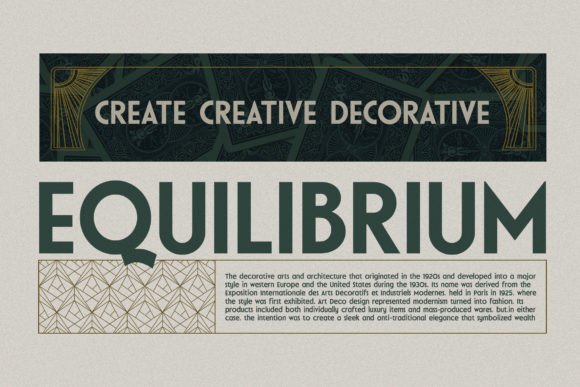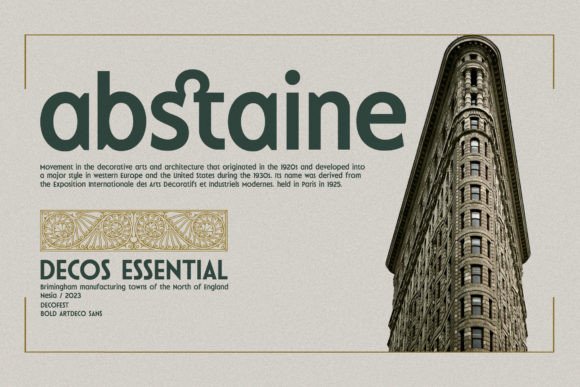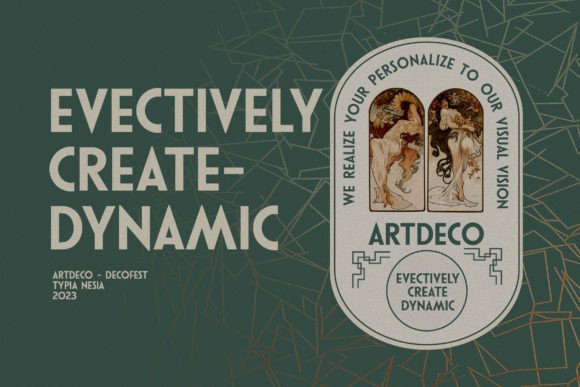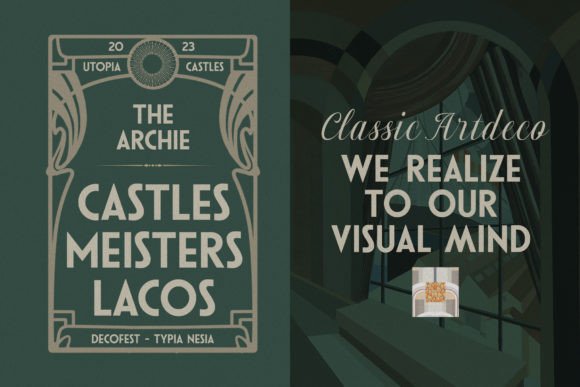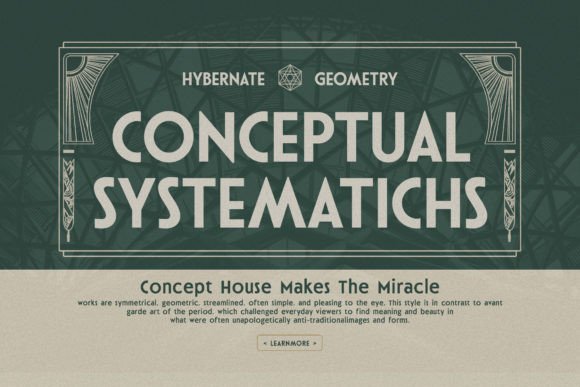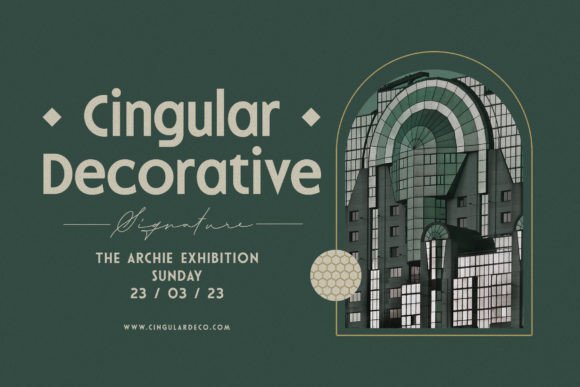
Introducing Decofast Font: The Ultimate Art Deco-Inspired Sans-Serif Font
Are you looking for a font that exudes classic vintage style and sophistication? Look no further than Decofast Font, an Art Deco-inspired sans-serif font that embodies the glamour and elegance of the Roaring Twenties. In this article, we’ll dive into the world of Decofast, exploring its design, features, and applications, and why it’s a must-have for designers and crafters alike.
The Art Deco Era: A Timeless Inspiration
The Art Deco era, which spanned from the 1920s to the 1940s, was a time of great creativity and innovation in design. Characterized by geometric shapes, metallic materials, and ornate decorations, Art Deco influenced various aspects of visual culture, from architecture to fashion, and of course, typography. Decofast Font is a modern interpretation of this iconic style, distilled into a clean and versatile sans-serif font.
Decofast Font: A Design Classic
Decofast is a display font that boasts a distinctive, elegant look, perfect for creating designs that evoke the luxury and refinement of the Art Deco era. Its sans-serif design ensures clarity and legibility, making it suitable for a wide range of applications, from branding and logos to packaging, posters, and more. With Decofast, you can add a touch of classic sophistication to your projects, instantly elevating them to a new level of style and glamour.
Key Features of Decofast Font
- Art Deco-inspired design: Decofast’s unique style is inspired by the geometric shapes, clean lines, and ornate details characteristic of Art Deco.
- Clean and legible: Despite its decorative nature, Decofast remains clear and easy to read, making it perfect for display text and headlines.
- Versatile: Suitable for various applications, including branding, logos, packaging, posters, and any project that requires a touch of classic sophistication.
- Elegant and sophisticated: Decofast exudes refinement and luxury, making it ideal for designs that require a high-end feel.
Applications of Decofast Font
Decofast Font is an incredibly versatile typeface, suitable for a wide range of design projects. Here are some ideas to get you started:
- Branding and logos: Create a lasting impression with a Decofast-inspired logo that embodies the elegance and sophistication of your brand.
- Packaging design: Add a touch of luxury to your product packaging with Decofast, perfect for high-end cosmetics, jewelry, or fashion brands.
- Poster design: Create eye-catching posters that evoke the glamour of the Art Deco era, ideal for advertising, events, or exhibitions.
- Stationery and invitations: Add a touch of classic sophistication to your stationery, invitations, or greeting cards with Decofast.
Why Choose Decofast Font?
With so many fonts available, why choose Decofast? Here are just a few reasons why Decofast stands out:
- Unique style: Decofast’s Art Deco-inspired design is unlike any other font, ensuring your designs stand out from the crowd.
- High-quality design: Crafted with attention to detail, Decofast is a high-quality font that will elevate your designs to new heights.
- Easy to use: Decofast is a clean and legible font, making it easy to use in a variety of design applications.
In conclusion, Decofast Font is a timeless and elegant sans-serif font that embodies the classic vintage style of the Art Deco era. With its unique design, versatility, and high-quality craftsmanship, Decofast is the perfect choice for designers and crafters looking to add a touch of sophistication and glamour to their projects. Whether you’re creating branding, packaging, posters, or stationery, Decofast Font is sure to impress.